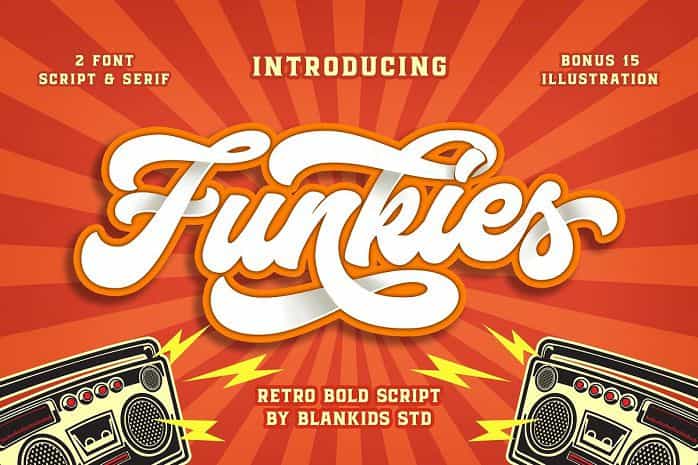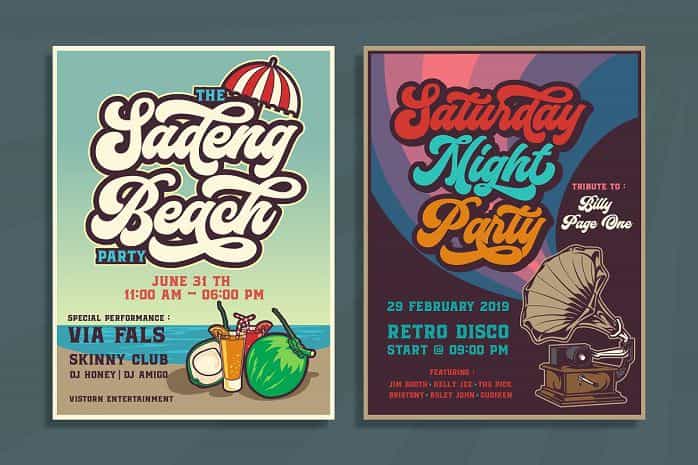
Introducing Funkies Font. It is created and posted by Blankids Studio. Funkies – is a new retro bold script. Return to the Funkies of the 70s which were inspired by posters and album covers of funk, disco and rockabilly music with bold and fun style. Funkies had open type features such as stylistic alternates, stylistic sets, swash & ligatures which were good for logotype, poster, badge design and tshirt. packaging etc